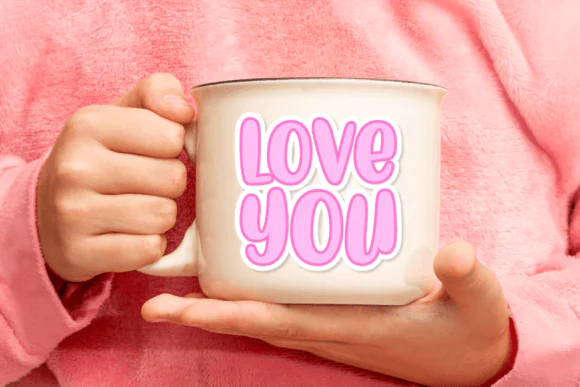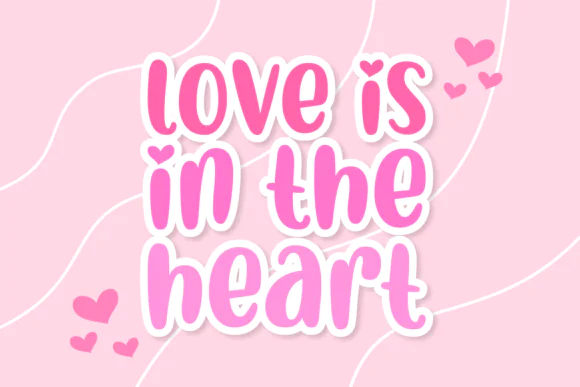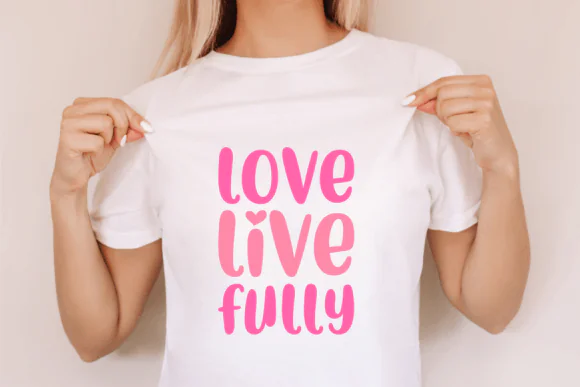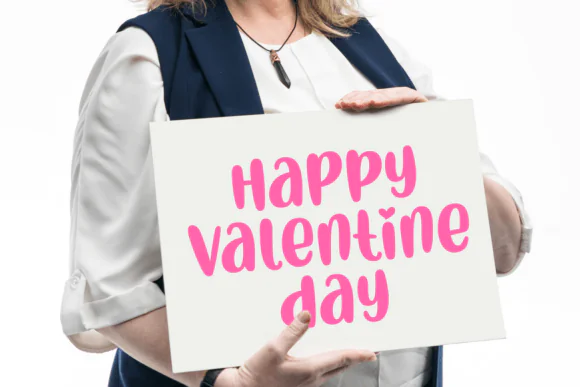
Add love, joy, and playful Valentine charm to your creative projects with Pink Heart Font, a vibrant display typeface designed to bring warmth, affection, and cheerful romance into every design. With its bold block-style letters and whimsical personality, this font is perfect for projects that need a bright, cute, and heart-filled visual style.
Pink Heart Font is ideal for Valentine’s Day designs, greeting cards, romantic posters, social media posts, stickers, product labels, party invitations, digital artwork, printable wall art, sublimation designs, t-shirts, gift tags, and craft projects. Its strong and buoyant lettering makes your text stand out while keeping the overall feel fun, loving, and expressive.
Whether you are creating a Valentine card, a love-themed poster, a cute Instagram graphic, or a romantic product design, Pink Heart Font adds a delightful touch of affection and creativity. It is a great choice for designers, crafters, small business owners, and content creators who want to make their designs feel sweet, bold, and memorable.